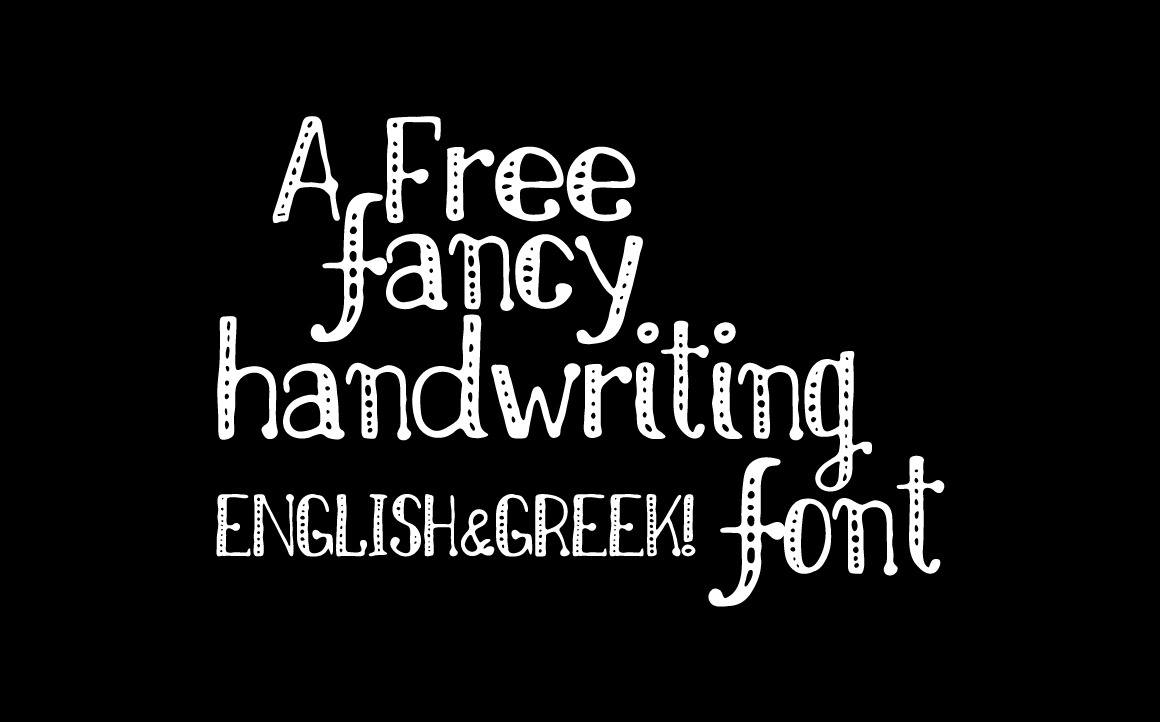
Nikolaidis Handwrinting font
Hand written font with both English and Greek support. Uppercase, Lowercase letters and some essential special characters.